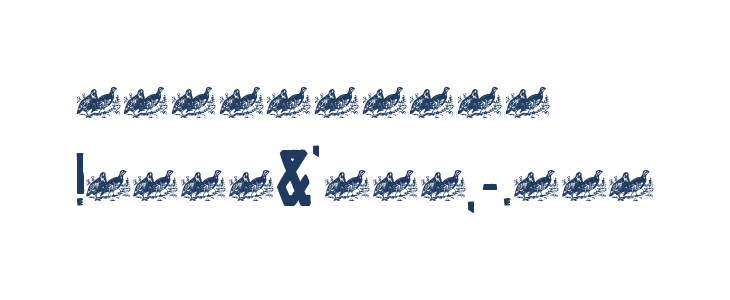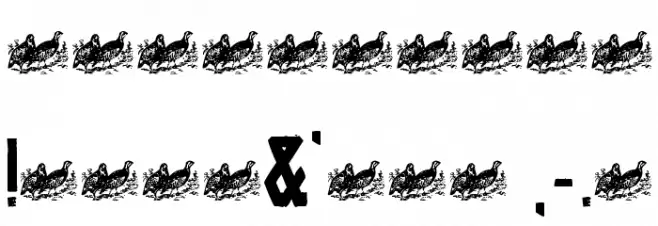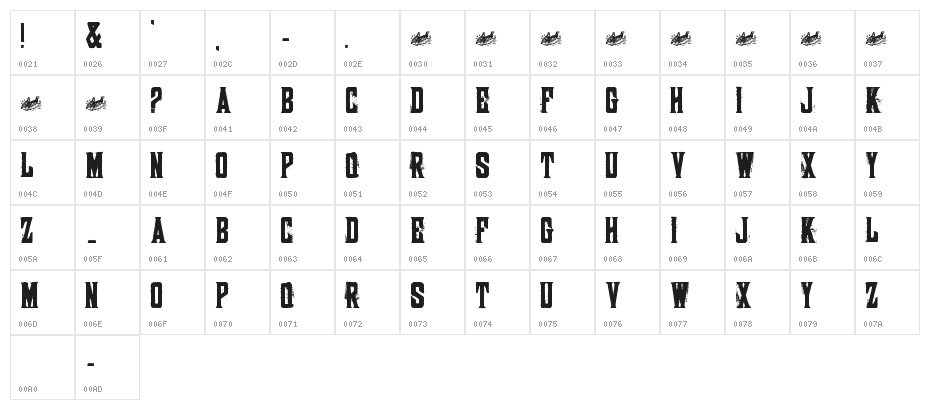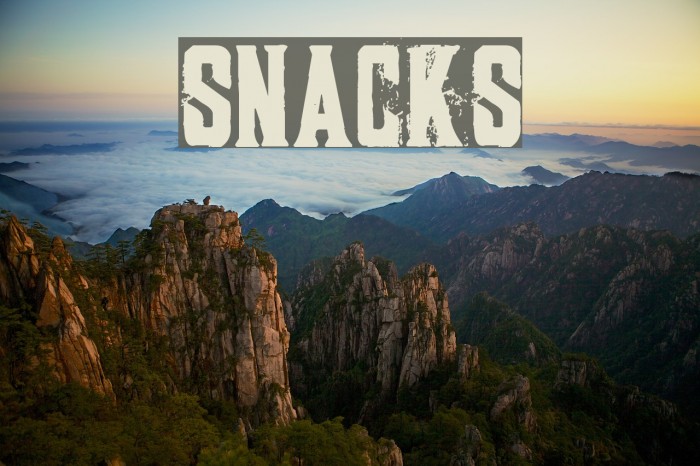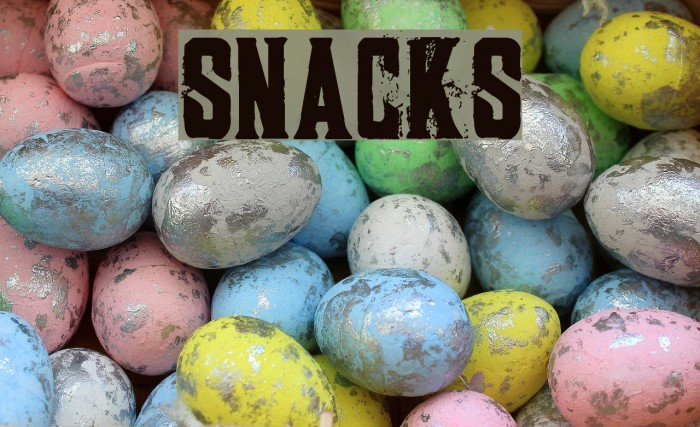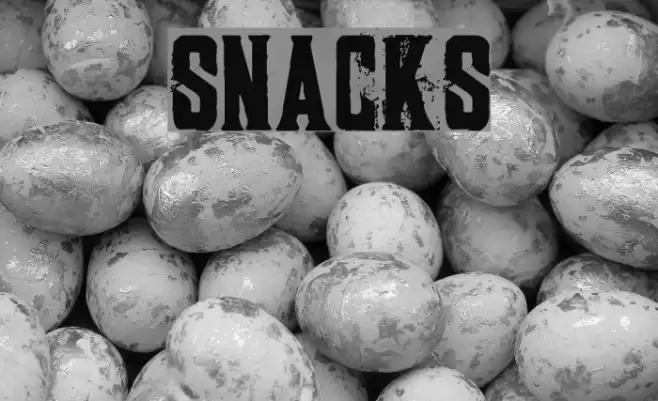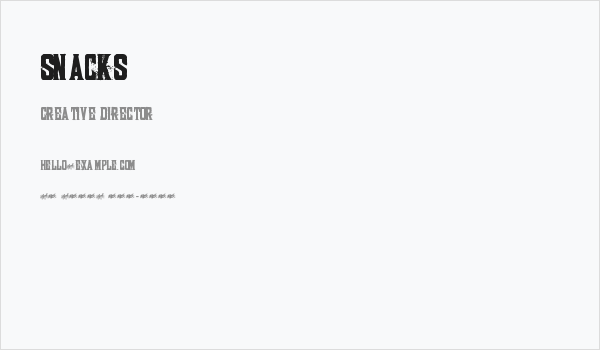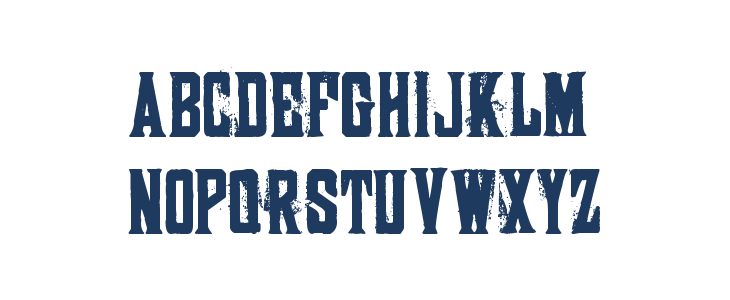
SNACKS Font
SNACKS Description
This font features a bold, distressed style with a rugged, textured appearance, reminiscent of vintage Western or circus posters. The uppercase letters are prominent and heavily stylized, with a rough, weathered look that suggests age and character. The font's unique texture gives it a dynamic and eye-catching quality, making it ideal for designs that require a strong, impactful presence. The characters are wide and have a substantial weight, contributing to their commanding appearance. The font's decorative elements add to its distinctive style, making it suitable for creative and thematic projects.
| Proposed Projects | Ideal for posters, logos, branding, and any design requiring a vintage or Western theme. |